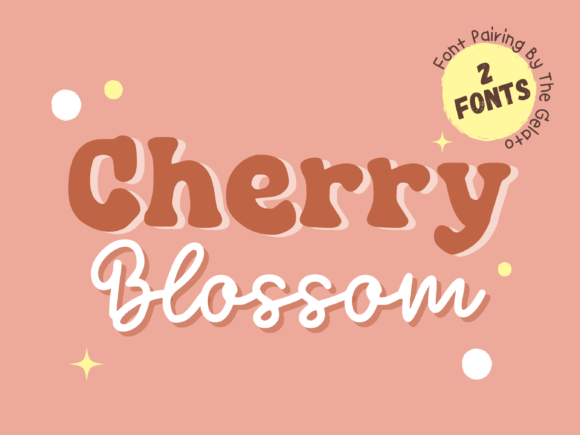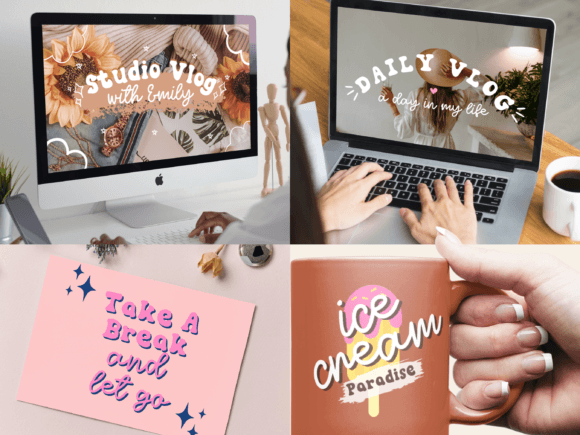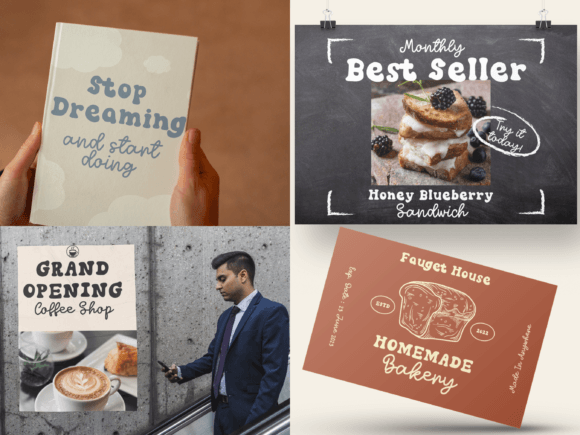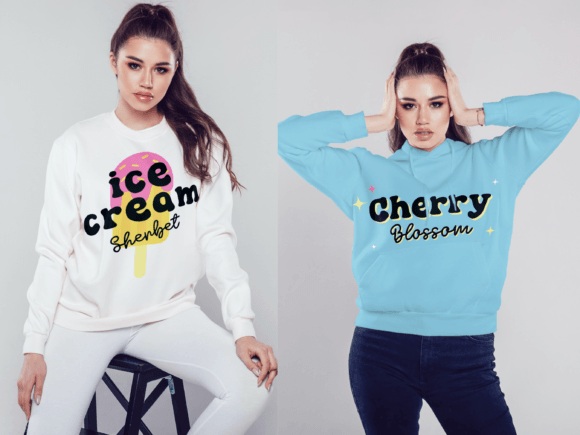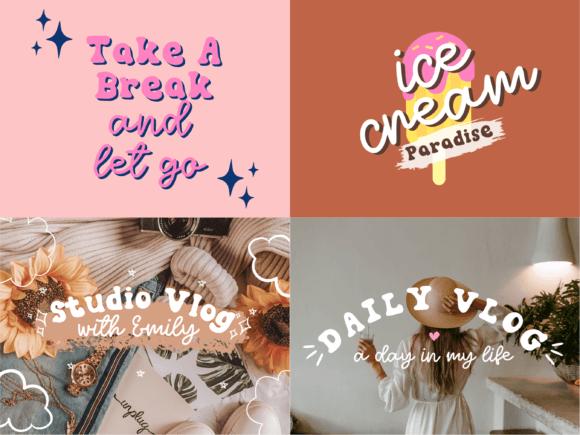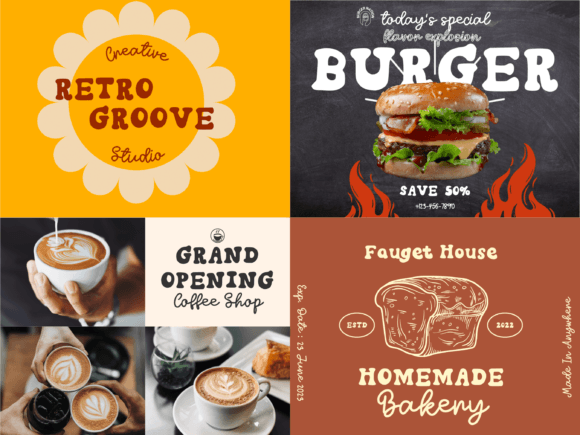
Unleash Your Creativity with the Cherry Blossom Font
Have you ever been strolling through a park on a crisp spring morning, surrounded by the vibrant blooms of cherry blossoms? The delicate petals, the gentle breeze, and the soft light all come together to create a moment of pure serenity. It’s in these fleeting moments that we find inspiration, and for designers, that spark can lead to something truly special.
Enter the Cherry Blossom Font, a stylish and modern handwritten typeface designed to bring a touch of personality to your designs. With its clean lines and sleek curves, this font is perfect for adding a dash of whimsy to your branding, social media graphics, or any other project that needs a bold statement without overwhelming the message.
As a designer, you know the value of having the right tools at your fingertips. With the Cherry Blossom Font, you’ll be able to access all glyphs and swashes effortlessly, thanks to its PUA encoding. Whether you’re a seasoned pro or just starting out, this font is sure to be a game-changer for your creative projects.
Cherry Blossom Font Key Features
- Font Size: The font comes in a range of sizes, from 8 to 120 points, allowing designers to choose the perfect scale for their project.
- Resolution: The font is optimized for high-resolution displays, ensuring crisp and clear text at resolutions up to 300 DPI.
- Unique Characteristics: The Cherry Blossom Font features delicate, hand-drawn illustrations of cherry blossoms, adding a touch of elegance and whimsy to any design.
- Language Support: The font includes support for multiple languages, including Latin, Cyrillic, and Greek scripts, making it suitable for international projects.
- Kerning and Ligatures: The font includes advanced kerning and ligature pairs, ensuring smooth text rendering and a professional look.
Designer Review: Cherry Blossom Font
Overall, the Cherry Blossom Font is a lovely, delicate script font that exudes a sense of whimsy and romance. I think it’s a great choice for designers looking to add a touch of elegance to their projects. ✨
- The intricate details of the font make it perfect for adding a sense of texture and depth to designs.
- The flowing connections between the letters create a sense of continuity and fluidity, making it great for headings and titles.
- The subtle variation in line weight adds a touch of organic feel, making the font feel more natural and human-made.
- ⚠️ The font may be too delicate for certain projects, such as those that require a strong, bold statement.
- ⚠️ The intricate details of the font may make it difficult to read at smaller font sizes or in low-resolution contexts.
- ⚠️ The font may not be suitable for projects that require a lot of text, as the flowing connections between the letters can make it difficult to read in large blocks.
Overall, I think the Cherry Blossom Font is a great addition to any designer’s toolkit, but it’s not suitable for every project. Use it sparingly and thoughtfully to add a touch of elegance and whimsy to your designs.
To get the most out of the Cherry Blossom Font, use it sparingly to add a touch of elegance and sophistication to your designs. Pair it with simple backgrounds and clean lines to let the font shine. Experiment with different font sizes and styles to create visual interest.
The Cherry Blossom Font is ideal for:
Branding and marketing materials
Special occasion graphics and designs
Any design where a touch of elegance and sophistication is desired